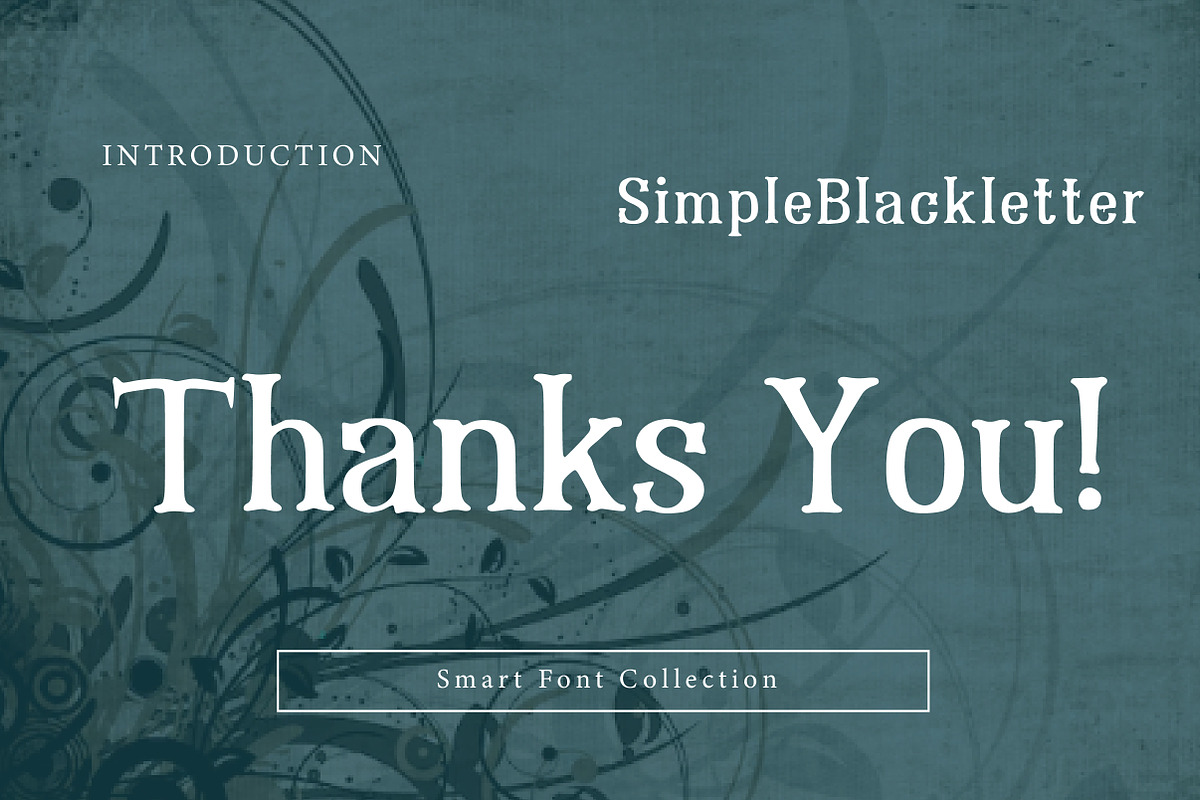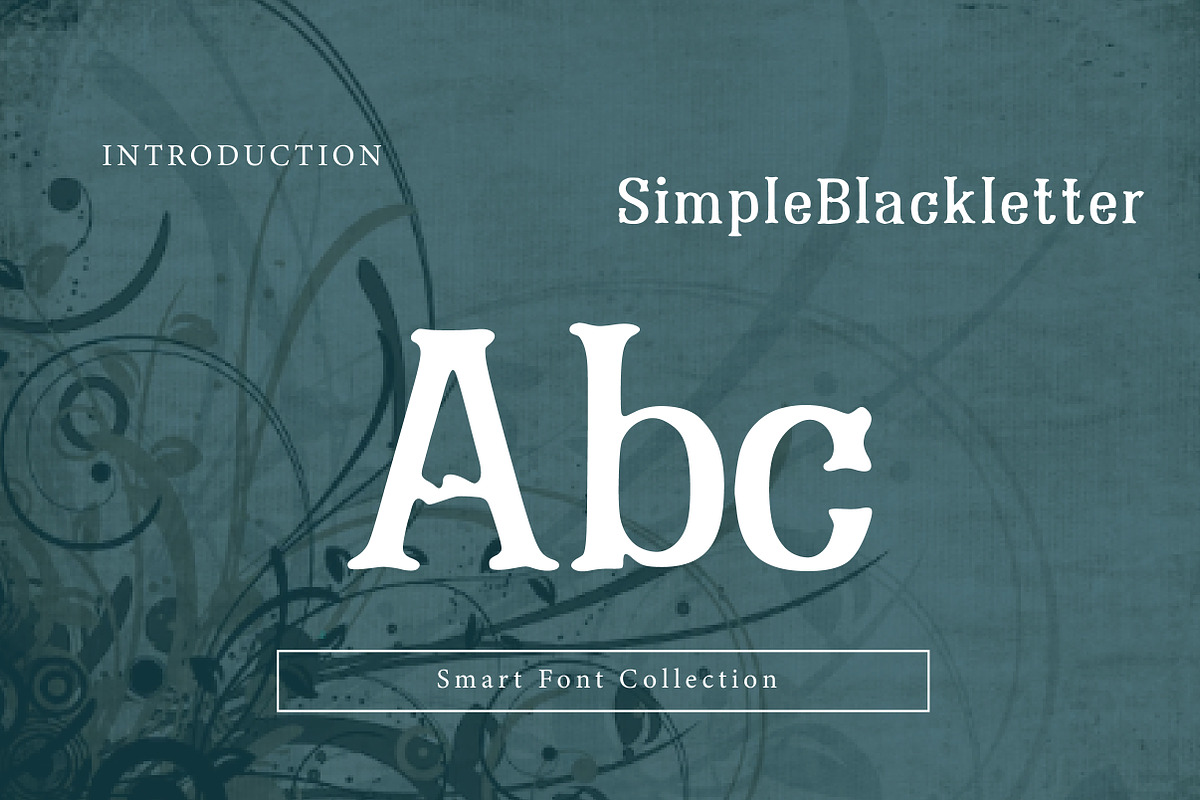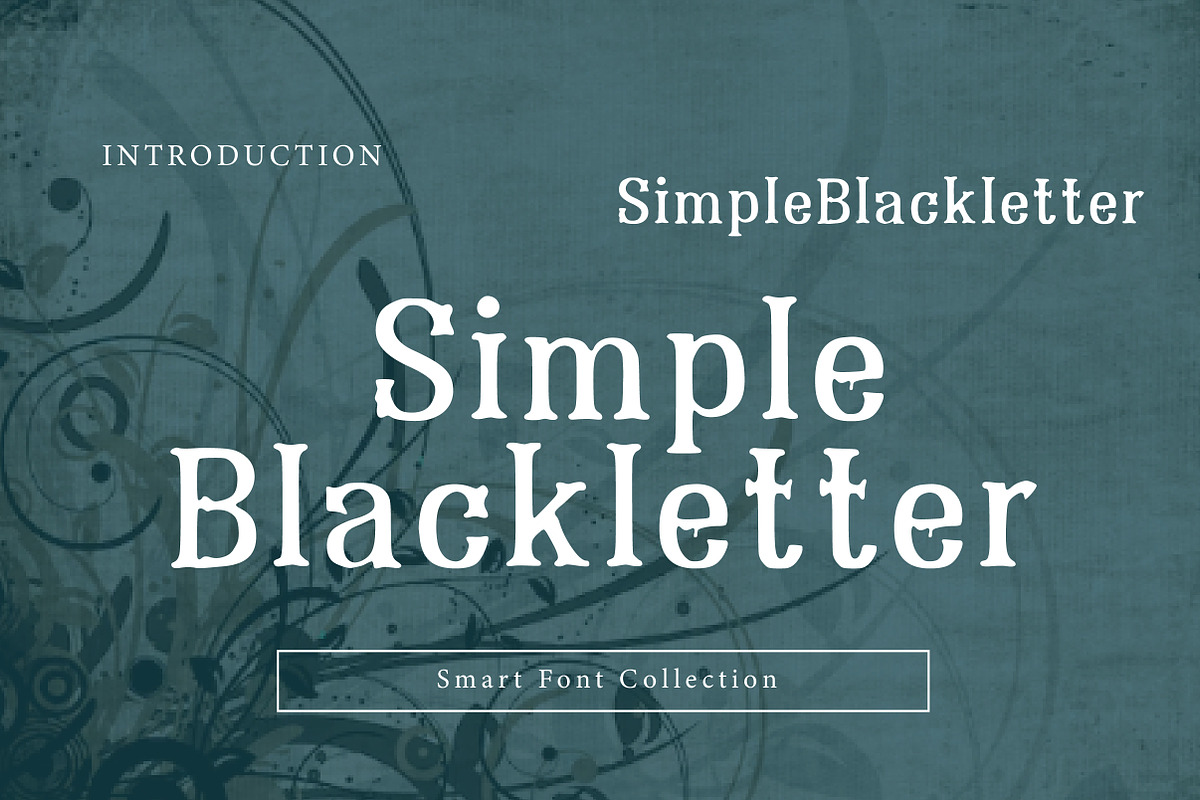
Simple Blackletter
Simple Blackletter is a clean, readable blackletter display font inspired by classic Gothic / Old English lettering—without heavy ornamentation. It keeps the traditional blackletter character while staying simple and versatile, making it easy to use for both modern and vintage-style designs.
Perfect for logos, branding, posters, headlines, book covers, labels, packaging, apparel designs, tattoos, certificates, and gothic-themed projects. If you want a blackletter font that feels strong, classic, and easy to read, Simple Blackletter is a great choice.
Perfect for: Gothic branding, vintage typography, medieval themes, dark aesthetic designs, and bold title lettering.